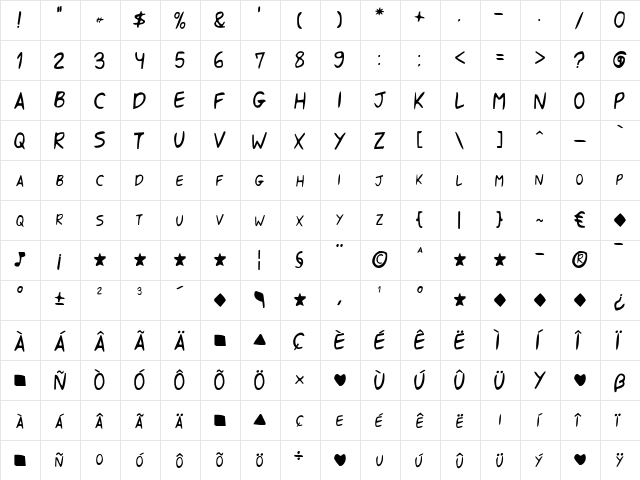
Shark Got Your Hand Font Preview
Design Context for Shark Got Your Hand Typeface
Shark Got Your Hand flows with the natural rhythm of handwritten lettering, making it ideal for designs that call for warmth and personal expression.
Font Pairing: Combine Shark Got Your Hand with a simple geometric sans for maximum contrast — the tension between flowing curves and clean structure is a classic typographic pairing.
Pro Tip: Pair Shark Got Your Hand with a clean sans-serif for supporting text. The contrast between fluid script and geometric structure creates an elegant typographic hierarchy.